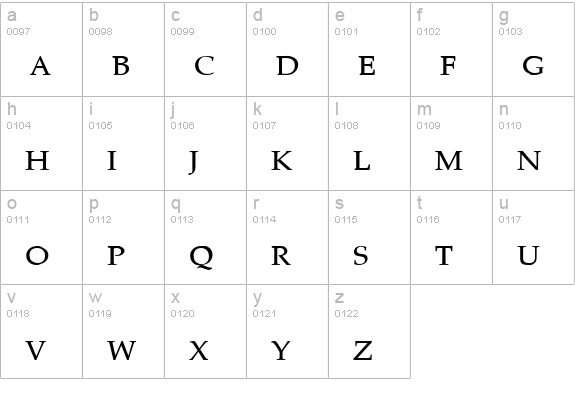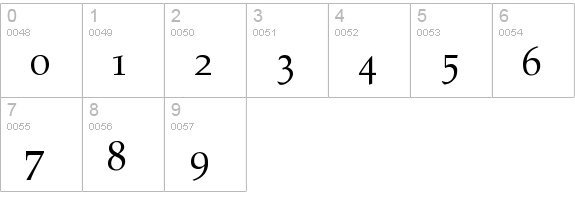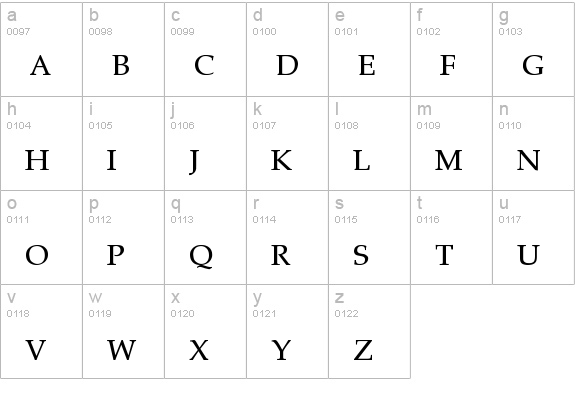
Pheasant Small Caps Font Details
Pheasant Small Caps font is a stunning typeface that exudes elegance and sophistication. Its carefully crafted design showcases the perfect balance between classic and contemporary elements, making it a versatile choice for any design project. With its small caps variant, Pheasant Small Caps font offers a unique and distinctive look. The refined letterforms maintain their legibility even when scaled down, making it ideal for headlines, branding, and editorial applications. Whether you're designing a logo, a book cover, or a website, this font will add a touch of refinement and professionalism to your work. This font's clean lines and graceful curves create a sense of harmony and balance. The small caps characters add an extra layer of visual interest, making your text stand out in a crowd. Pheasant Small Caps font is perfect for creating a sense of exclusivity and luxury, making it a popular choice for high-end brands and sophisticated designs. The best part is, Pheasant Small Caps font is available for free download at FontsMarket.com. This means that you can enjoy the beauty and versatility of this font without having to spend a dime. Simply visit FontsMarket.com and add this font to your collection with just a few clicks. So why wait? Enhance your design projects with the timeless elegance of Pheasant Small Caps font. Download it for free at FontsMarket.com and elevate your designs to new heights of sophistication and style.